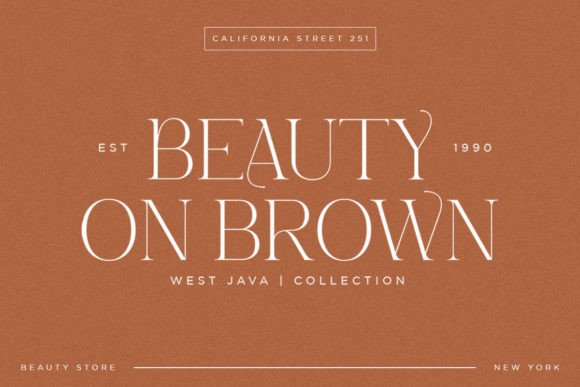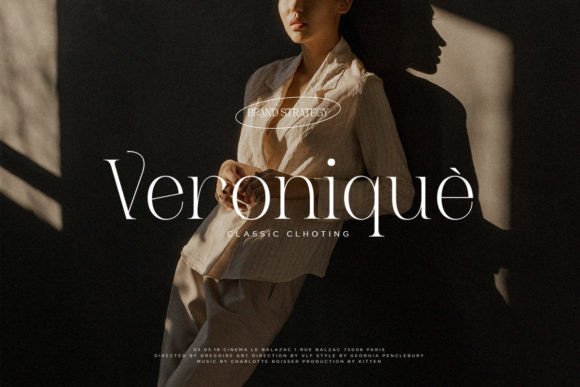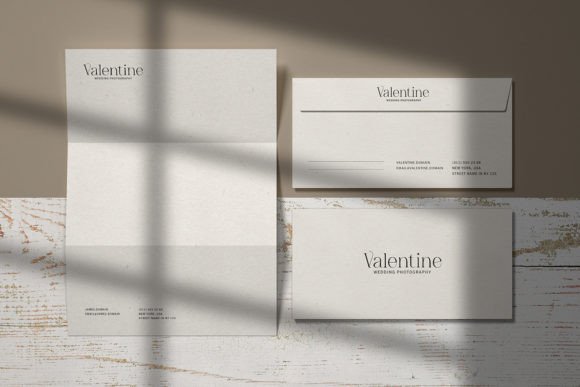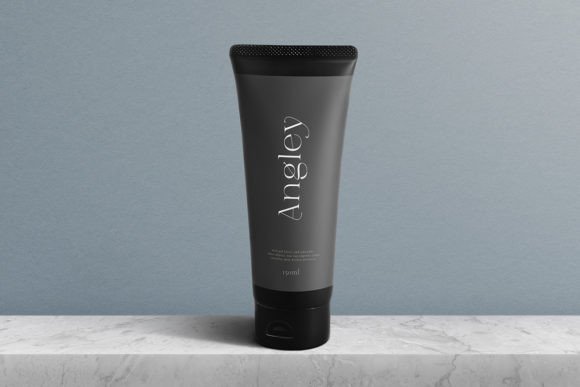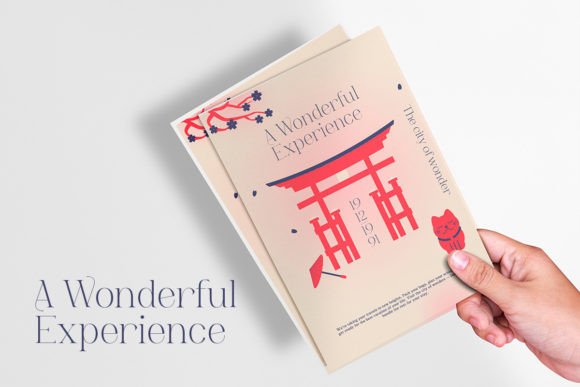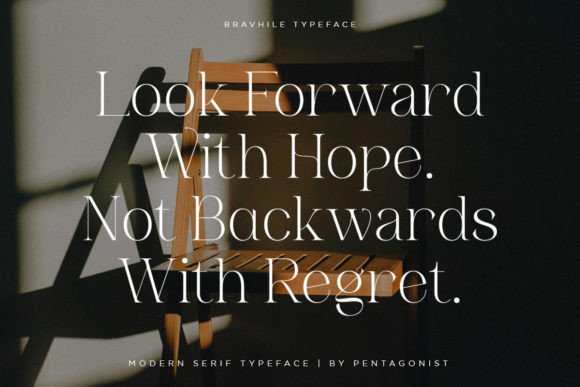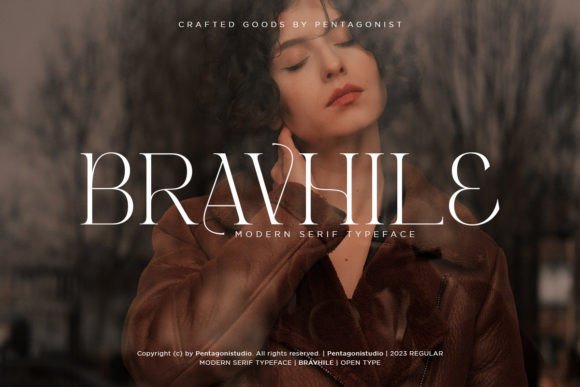
Bringing Timeless Charm to Your Designs with Bravhile Font
Have you ever been in the middle of a design project, and suddenly, you’re struck by a creative block? You’re not alone! I recall working on a vintage-inspired branding project for a client, and I was struggling to find the perfect font that would evoke the nostalgic feel they wanted. That’s when I stumbled upon Bravhile Font, and it was love at first sight! ✨
A Personal Review of Bravhile Font
As a designer, I’m always on the lookout for fonts that can bring a unique touch to my projects. Here’s what I love about Bravhile Font:
• ✨ Elegant curves and refined lines that harken back to a bygone era
• ✅ Perfect for creating nostalgic branding materials, vintage-inspired packaging, and editorial designs
• ✨ A stylish and attractive serif font that adds a touch of history to any project
While Bravhile Font is an excellent choice for many design projects, there are a few small quirks to be aware of:
• ⚠️ Some users may find the font a bit too ornate for certain design applications
The Backstory Behind Bravhile Font
Bravhile Font was designed with the intention of capturing the essence of a bygone era. The font’s creator drew inspiration from classic serif fonts, refining and perfecting the design to create a unique and elegant typeface. The result is a font that exudes sophistication and nostalgia, perfect for designers looking to add a touch of history to their projects.
What is Bravhile Font? Bravhile Font is a deluxe and vintage serif font designed to bring timeless charm to your designs.
Is Bravhile Font easy to read? Yes, Bravhile Font is designed to be elegant and refined, making it easy to read in various design applications.